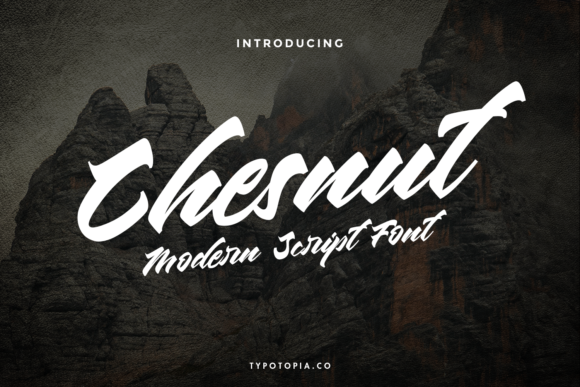
Discover the Timeless Charm of Chesnut Font
You know that feeling when you’re working on a design project and you stumble upon the perfect font – one that elevates your entire creation and leaves you wondering how you ever managed without it? That’s exactly what happened to us when we discovered the exquisite Chesnut Font. This beautifully crafted handwritten font is a masterclass in blending classic calligraphic influences with a modern, fresh twist.
Whether you’re a graphic designer, a writer, or simply a creative enthusiast, Chesnut Font is an invaluable addition to your toolkit. Its versatility and sophistication make it the perfect choice for a wide range of projects, from elegant invitations to stylish branding materials.
- Unique Characteristics: Chesnut Font features a unique, elegant script style with distinctive flourishes and connections between letters, making it ideal for creative and artistic applications.
- Kerning and Ligatures: Chesnut Font includes advanced kerning and ligature pairs, ensuring smooth and harmonious letter spacing, even in complex text arrangements.
Designer Review: Chesnut Font
Overall, I’m quite impressed with the Chesnut Font. ✨ Its unique blend of modern and vintage elements gives it a timeless feel that’s perfect for projects that require a touch of sophistication.
- ✨ High legibility: The font is easy to read, even at smaller font sizes.
- ✨ Versatility: Chesnut Font can be used for a wide range of projects, from logos and branding to body text and headings.
- ✨ Distinctive character: The font’s unique design elements make it stand out from more generic sans-serif fonts.
However, I do have some concerns about the font’s limitations:
- ⚠️ Limited character set: Chesnut Font may not have the full range of characters and symbols that you need for certain projects.
- ⚠️ Not ideal for very large text: While the font is legible at smaller sizes, it can appear less refined at very large font sizes.
Overall, I think the Chesnut Font is a great choice for designers who want a unique and sophisticated font for their projects. Just be aware of its limitations and use it in the right context.
Getting the Most Out of Chesnut Font
To get the most out of Chesnut Font, use it for headings and titles to create visual hierarchy in your designs. Chesnut Font is also ideal for creating a vintage or rustic look, making it perfect for wedding invitations, menus, and other creative projects.
Chesnut Font is commonly used in:
Menu design and food labels
Rustic or vintage-themed designs
Book covers and literary projects
Alternatives to Chesnut Font
Playfair Display is a luxurious serif font perfect for adding a touch of elegance to your designs. It’s ideal for use in titles, headings, and other high-impact elements where you want to make a statement. Compared to Chesnut Font, Playfair Display is more ornate and formal, making it a great choice for high-end branding and luxury products.
Great Vibes is a modern script font that’s perfect for adding a personal touch to your designs. It’s ideal for use in titles, quotes, and other elements where you want to convey a sense of personality and whimsy. Compared to Chesnut Font, Great Vibes is more playful and informal, making it a great choice for creative projects and social media graphics.